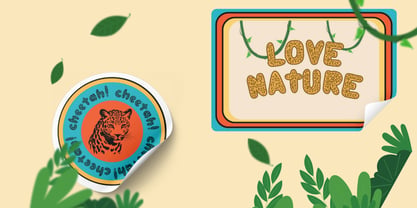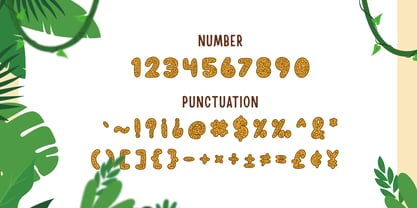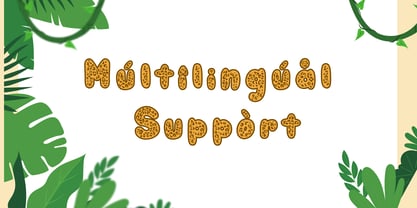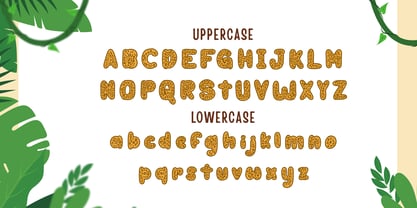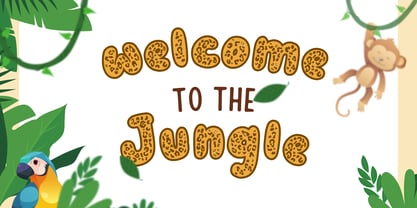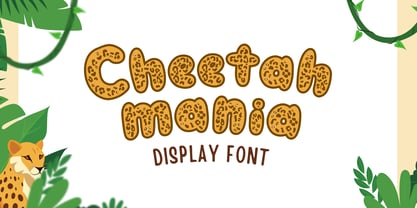
Cheetah Mania
The Cheetah Mania Font Family was designed by Fadli Ramadhan Iskandar and published by Attype Studio. Cheetah Mania contains 1 styles. More about this family
Cheetah Mania is a bold and playful display font that features fun cheetah spot patterns on each letter.
Designed to bring wild energy and a joyful vibe, this font is perfect for kid-friendly content, digital stickers, and animal-themed projects. |
With its hand-drawn look and eye-catching texture, Cheetah Mania will help your titles and graphics roar with personality.
This font works best for creative projects that need a touch of wilderness without losing charm—ideal for crafts, posters, learning visuals, packaging, and more.
Perfect for:
Jungle or safari-themed projects, Kids’ activity sheets and coloring books, Birthday invitations and party kits, Educational posters and visuals, Digital stickers and printables, Fun packaging and snack labels, Animal-themed YouTube thumbnails or intros, Decorative titles for playful designs
Features :
- Multilingual, US Roman, Latin 1 Support